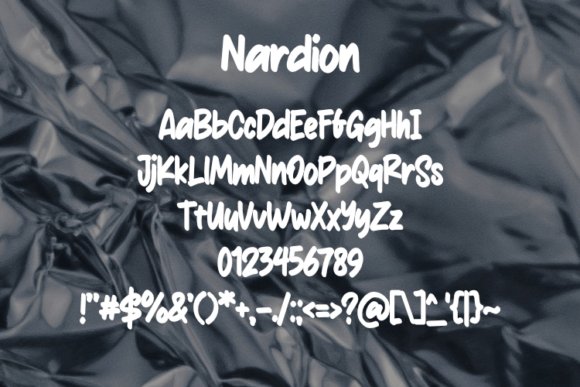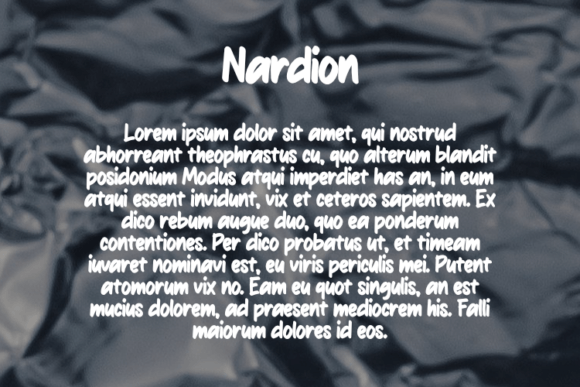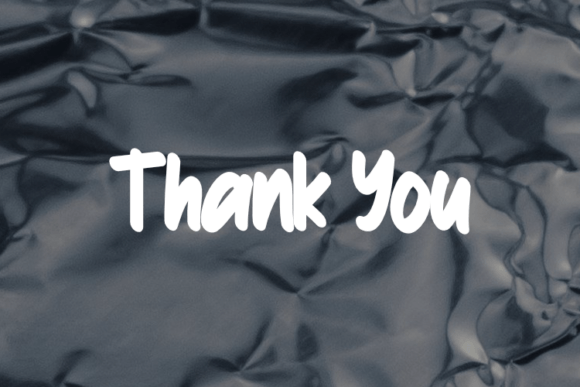
Introduction to Nardion Font
Engage in the artistic realm of Nardion, a dynamic font crafted to actualize your apparel ideas, ranging from casual t-shirts to luxurious fashion items.
This typeface seamlessly blends into all designs and software, elevating your visual appeal with its refined outlines and unique personality Presented in the OTF file format, Nardion proves to be a powerful instrument prepared to turn creative concepts into tangible artistry.
Nardion Font offers exceptional quality and versatility, making it a valuable addition to your design toolkit. Whether you’re creating for personal projects or commercial use, Nardion Font delivers professional results.